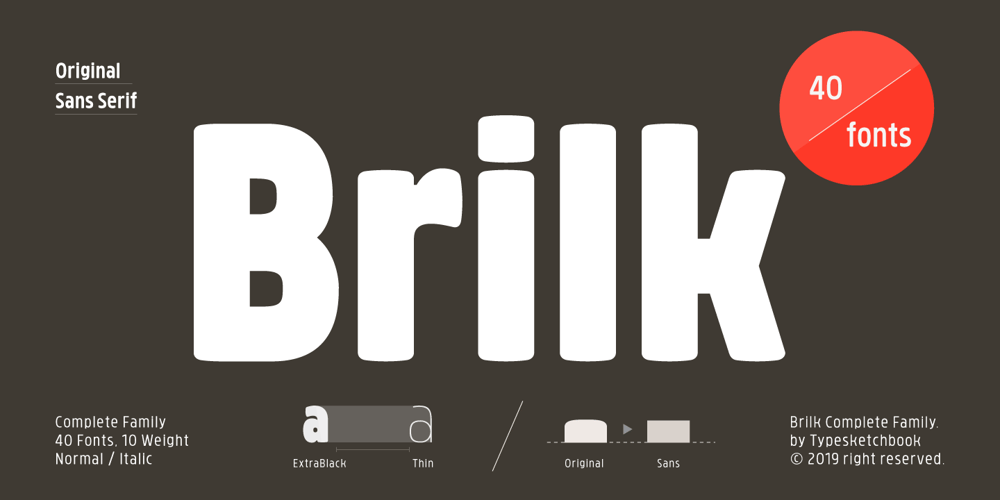
Brilk Font Family was designed by Somchai Jingsupathada, Chatnarong Jingsuphatada and published by Typesketchbook. Brilk contains 40 styles and family package options. Brilk is a condensed Sans-serif typeface made up of 40 fonts across 10 weights with normal and Sans-serif options. It’s a unique and modern sans typeface, which is well suited for a variety of typographic applications such as headlines and small texts. The Brilk font family supports multiple languages and is available as both webfont and desktop font.